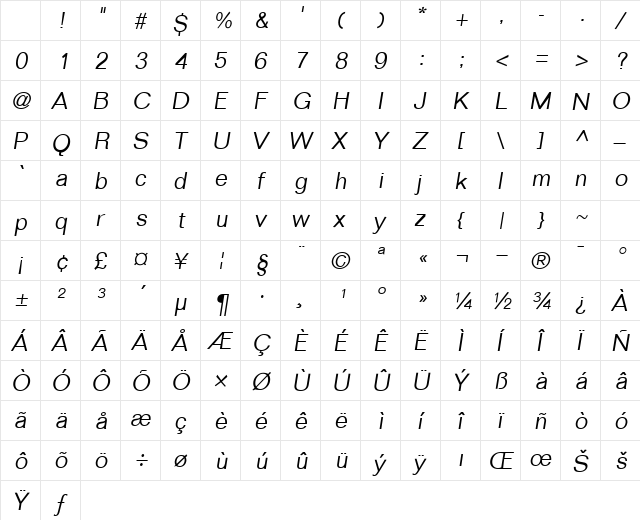
Complete ElenchusLight Oblique glyph index. Displaying only characters natively supported by ElenchusLight Oblique font.
ElenchusLight is a composed and adaptable typeface that performs quietly and consistently across a wide range of design contexts. The slanted form adds forward momentum and visual energy. Its slender proportions lend an understated elegance to any composition.